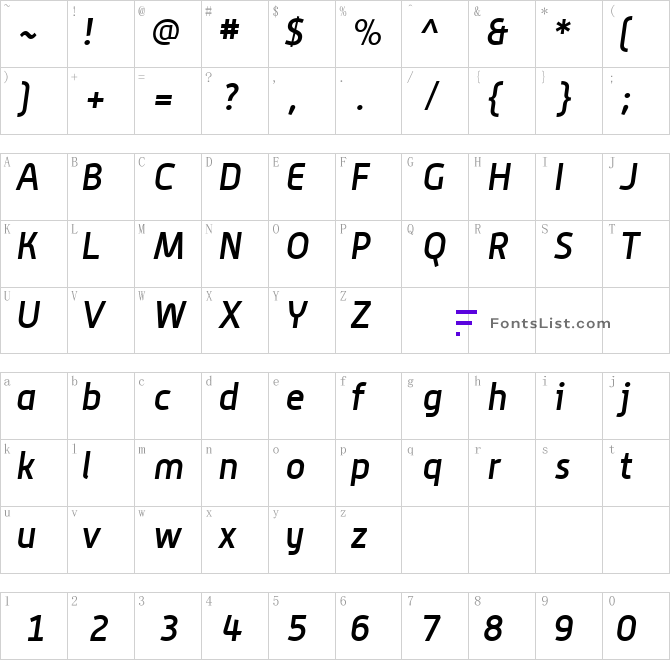
- Font Name:Alwyn
Alwyn-MediumOblique.ttf is a very beautiful artistic font, Alwyn-MediumOblique.ttf is widely used in the design and printing of various books and pictures,Alwyn-MediumOblique.ttf has a strong visual impact,Alwyn-MediumOblique.ttf is a commonly used font in newspapers, magazines and books, and is used in posters, e-commerce Poster design, store design, logo design, font design and other fields.Alwyn-MediumOblique.